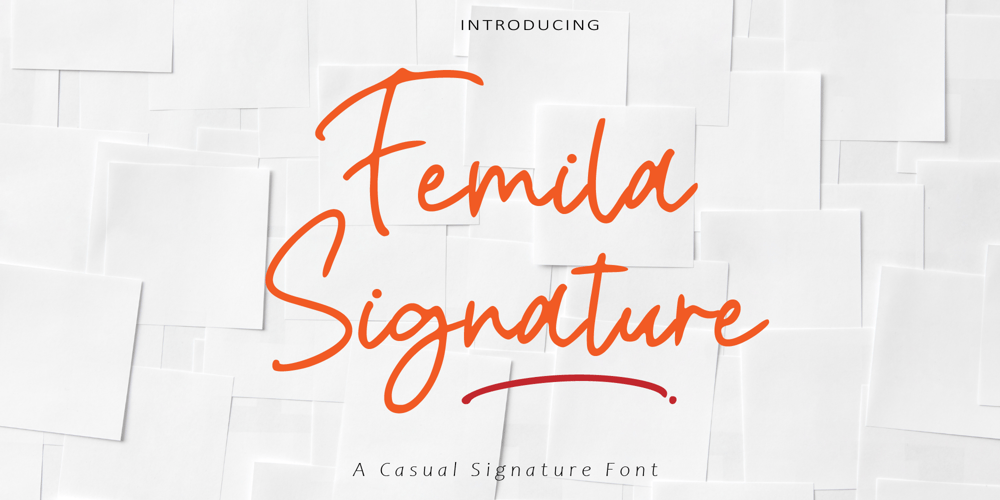
Femila Signature Font Family was designed by Khalifah Ibrahim and published by Ibrahima Studio. Femila Signature contains 2 styles and family package options. Femila is a casual signature font, specially made by the hands of experts, making this font look so beautiful and natural. This font can be used for products that use a natural, beautiful and charming handwriting feel.Femila is perfect for branding projects, logo, wedding designs, social media posts, advertisements, product packaging, product designs, label, photography, watermark, invitation, stationery and any projects that need handwriting taste.